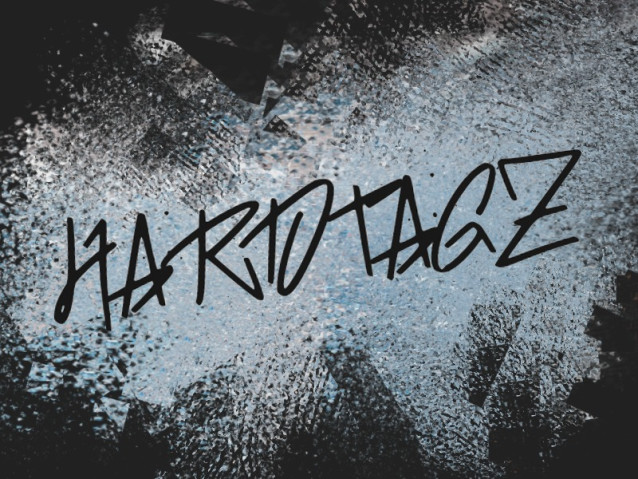
h Hardtagz Font is a graffiti style handwritten font. No matter the topic, this font will be an incredible asset to your fonts’ library, as it has the potential to elevate any creation.
h Hardtagz Font